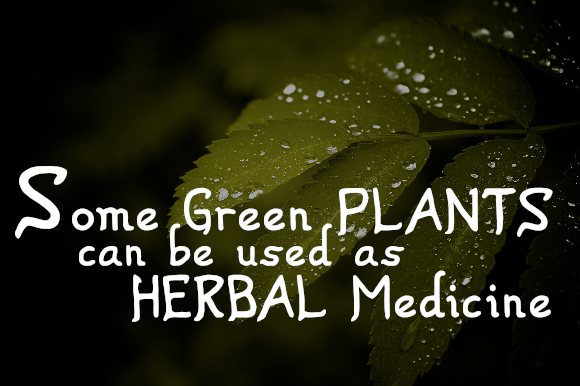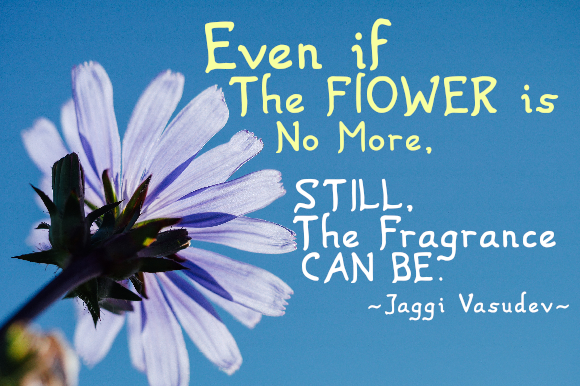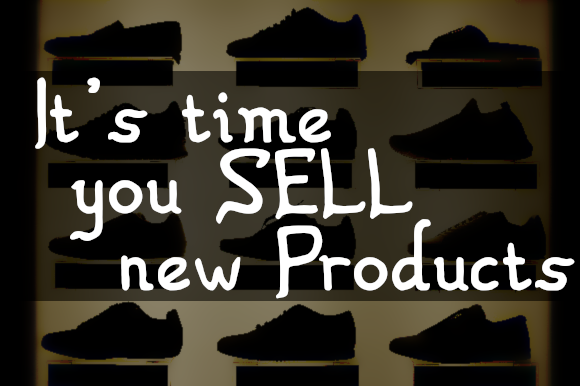
Introduction to Singgalang Font
Singgalang is a cute and charming decorative font with a lot of authenticity.
It will add a unique feel to any design project .
Key Features of Singgalang Font
Why Choose Singgalang Font?
Singgalang Font offers exceptional quality and versatility, making it a valuable addition to your design toolkit. Whether you’re creating for personal projects or commercial use, Singgalang Font delivers professional results.